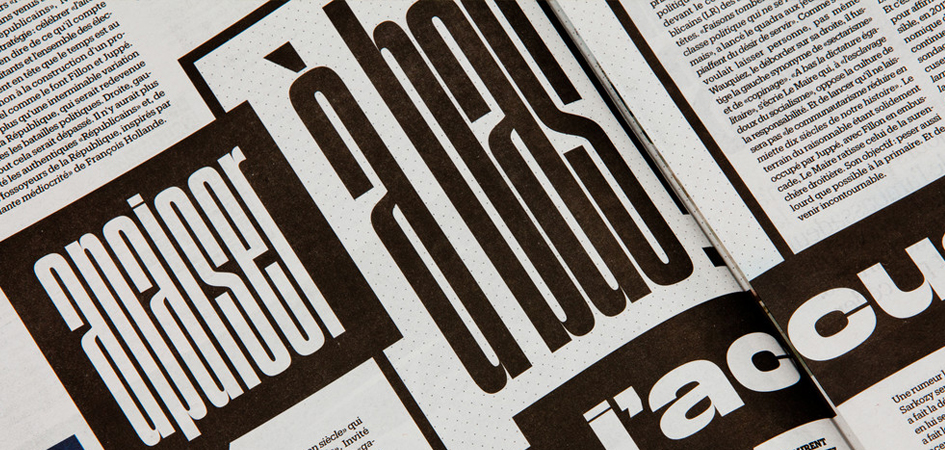
This is why Libération’s new typefaces are making headlines
An acclaimed typeface designer with a focus on exclusive corporate fonts, Jean-Baptiste Levée is making headlines once again - literally. The co-founder of the Bureau des Affaires Typographiques (the first French typeface design & distribution company on the Internet), known for his way of working methodically in a process where history and technology are approached altogether within the nuances of artistry, has designed over a hundred typefaces for industry, moving pictures, fashion and publishing and his designs are featured in the permanent collections of the printing Museum in Lyon (France) and the Klingspor Museum in Offenbach (Germany). France’s delegate at AtypI, Levée curates exhibitions on typeface design, organizes research symposiums and teaches typeface design at the Amiens school of Arts & Design, at the Caen-Cherbourg school of Arts & Media and at the University of Corte yet, he continues to manufacture functional, yet versatile digital platforms for designers to build upon. His latest accomplish? Creating under the creative direction of Yorgo Tloupas and Javier Errea, Libération’s new typefaces, Libé Sans and Libé Typewriter. This is what you need to know about this iconic reinvention.
“For the redesign of Libération, art directors Yorgo Tloupas and Javier Errea requested ultra-condensed, tall and flat-sided sans serifs in the vein of Compacta and the American Gothics (e.g. Trade, Franklin, News). However, none of these typefaces were a match for the complex specifications of the new Libération: a wide palette of expressions across a set of weights and widths, a very dense texture and space efficiency, a stacking system, and an automatic underline system — all of them referencing the typography of the newspaper when it launched in 1973. Beyond that, a tribute to Libération’s design history would not be complete without the influence of 1970s French faces.”
“Overall, Libé Sans is a compact design, with a colossal lowercase. Where large x-heights are usually incorporated for small text readability, in Libé Sans it is conceived as a display feature. The family proves most functional at large sizes where horizontal space is scarce, thus forcing the letters to occupy any space allowed. That is why the collection encompasses three different condensed styles, but only one normal width and one extended width. The vertical proportions remain identical throughout all styles so they can be mixed within a line. The very short ascenders and descenders are specifically meant for tight line-fitting in lowercase, creating a dense texture in the newspaper’s page rhythm. What’s more, the “Stacked” accent system offers an alternative design for all-caps setting.”
“A tribute to Libération’s design history would not be complete without the influence of 1970s French faces”
“Libé Sans is strongly inspired by Antique Presse, a typeface designed in 1964–65 for newspaper and daily press work. Usually attributed to Ladislas Mandel at Deberny & Peignot in the ’60s, it was later established that Adrian Frutiger, then art director of the foundry, was more likely the mind behind Antique Presse. As further proof, Antique Presse quite blatantly follows Frutiger’s Univers pattern at many levels. Many other influences were taken into account when designing Libé Sans, including features of Libération’s contemporary European typefaces of the ’60s-70s, such as the tight letterspacing of Brasilia, the squarish caps of Eurostile, and the odd contrast of Antique Olive.”
“If Libération was a piece in the history of architecture, no doubt that it would be the Centre Georges-Pompidou”
“Libé Typewriter takes its cue from a offhand remark by Yorgo Tloupas during the preparatory phases of the redesign, where a need for a typewriter face was foreseen. After American Typewriter was the obvious, worn-out and soon discarded option; Tloupas’ declared that, “If Libération was a piece in the history of architecture, no doubt that it would be the Centre Georges-Pompidou”. Indeed, there was a typewriter face used for the Centre Georges-Pompidou: CGP, the proprietary alphabet for the Centre, commissioned by Jean Widmer and designed by Adrian Frutiger in 1974. CGP hereby served as the main reference for Libé Typewriter. CGP itself was based on “Fine Line”, a fixed-width face bundled with IBM typewriters. Libé Typewriter merges both references into a single design. Unlike a true monospaced font, Libé Typewriter does not preserve a constraint that has no relevant foundation in the context of a newspaper. Libé Typewriter is proportionally designed and spaced, and has an optional built-in underlining system that automatically avoids the overlapping of descenders.”